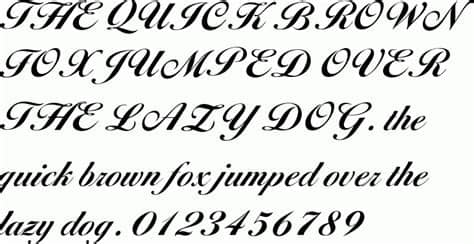
Download free and premium fonts. We have 1 free bank, check fonts to offer for direct downloading · 1001 fonts is your favorite site for free fonts since 2001. Bank script d font info. Urw software, copyright 1994 by urw style: Contains language support for west, east, turkish, baltic, and romanian. On this page you can download bank script d truetype font (here). Designed by james west in 1895, bank script is a script release by urw. Below you can see glyphs bank script d font.
Bank script font designed by james west in 1895, bank script is a script release by urw.
Preview the bank script d font for windows, mac and linux. Click on the next picture to preview this font with another text You can download this web font for free. 17 professional bank script fonts to download. Dear visitor, you went to the site as unregistered user. Search results for 'bank script' (free bank script fonts). Before installing the bank scr d font in os x, you must first completely close all applications. Similar fonts for bank script d from myfonts.com. Download 186,286 free fonts at ufonts.com. Added by zemin (4 style). We encourage you to create a free account and login. Of fonts downloaded in last. Download free and premium fonts.